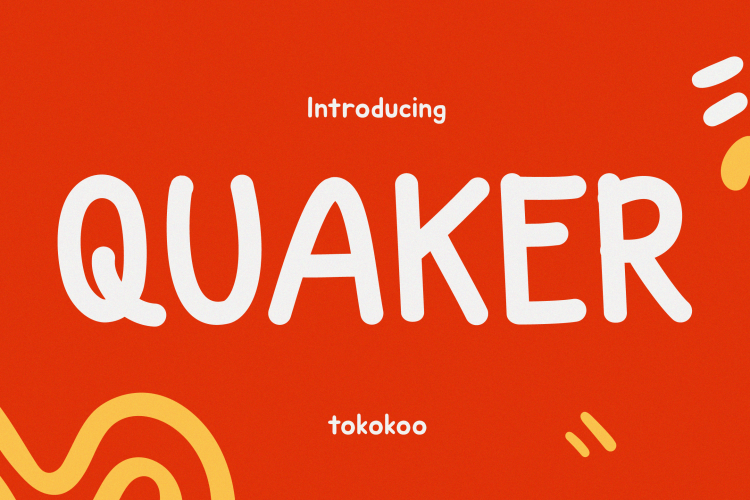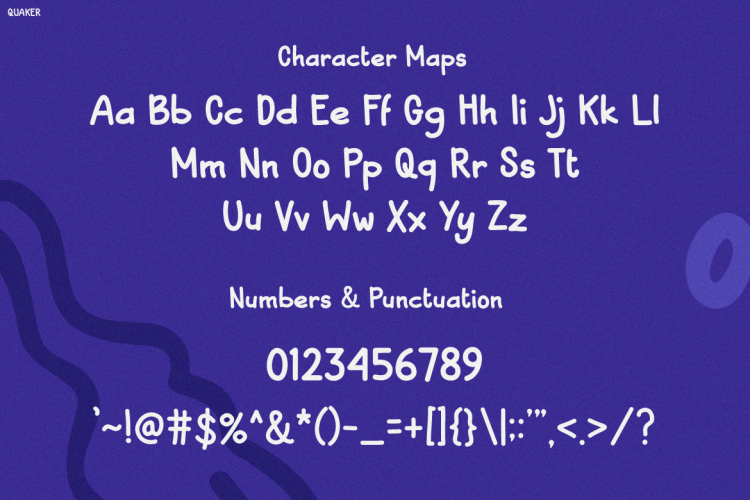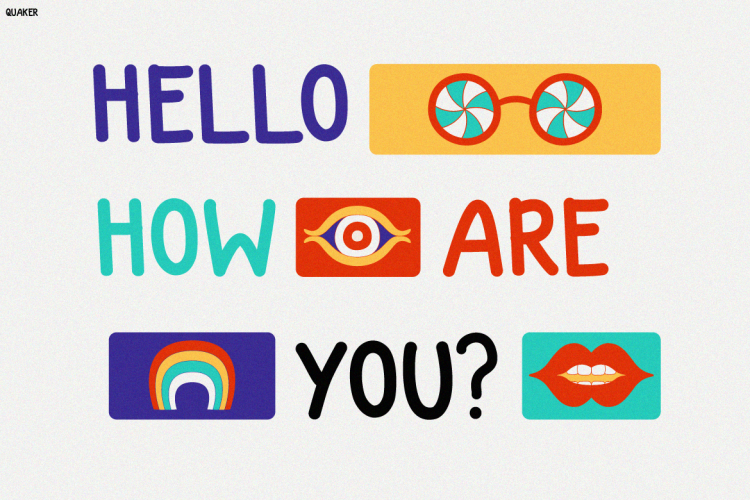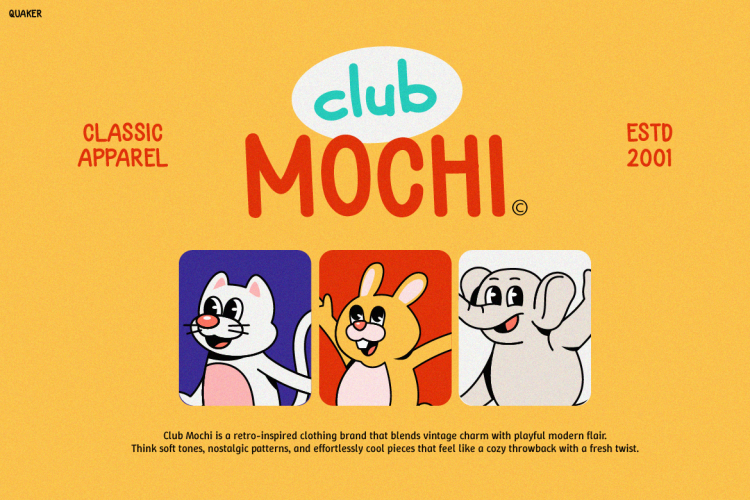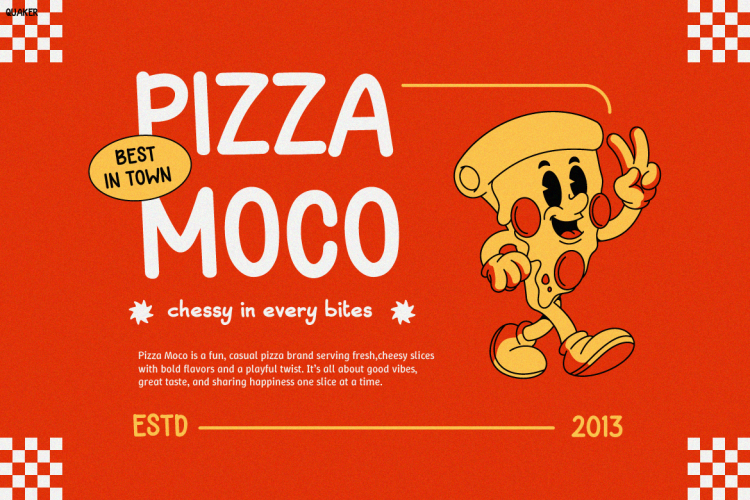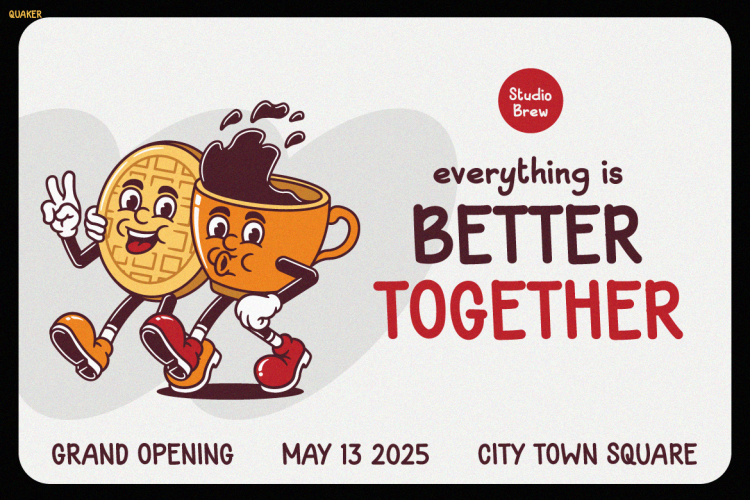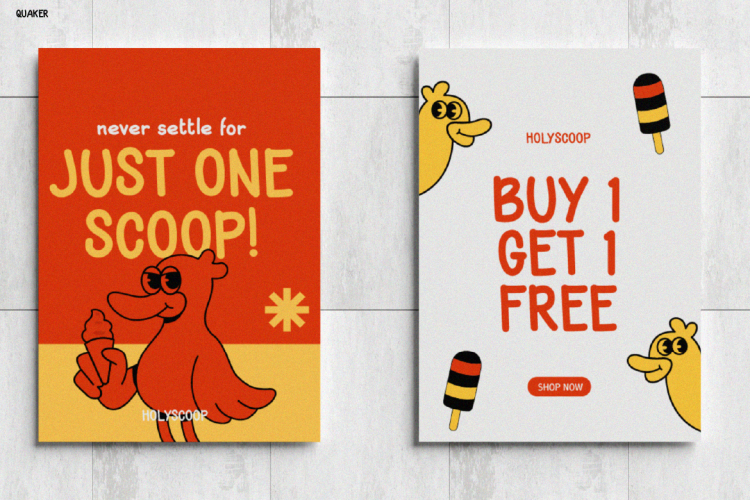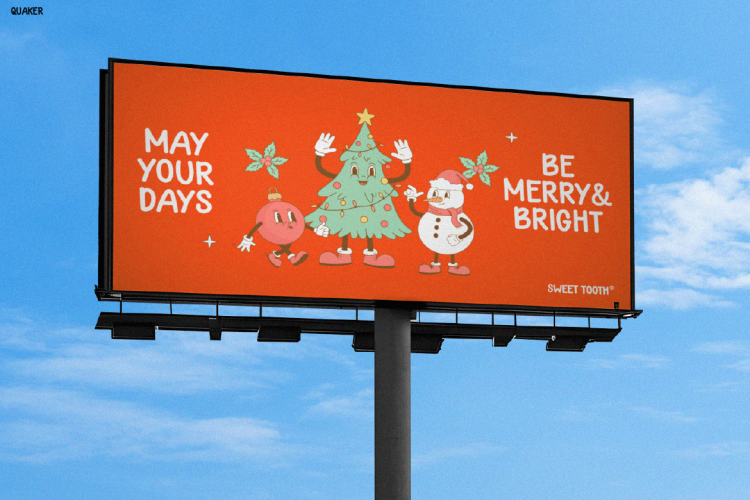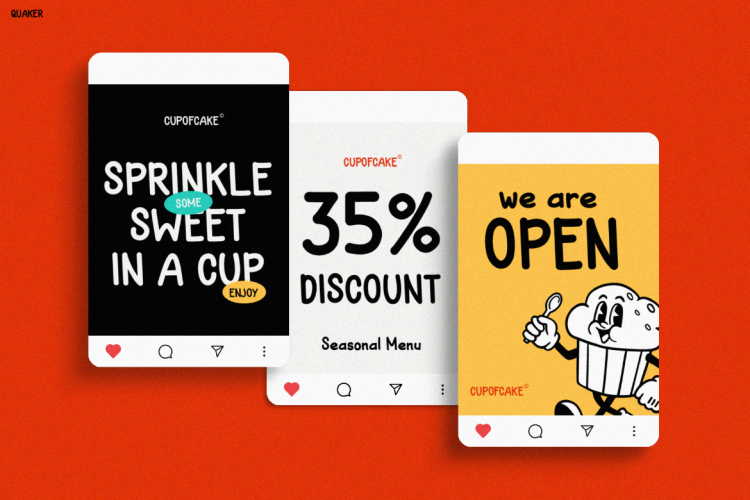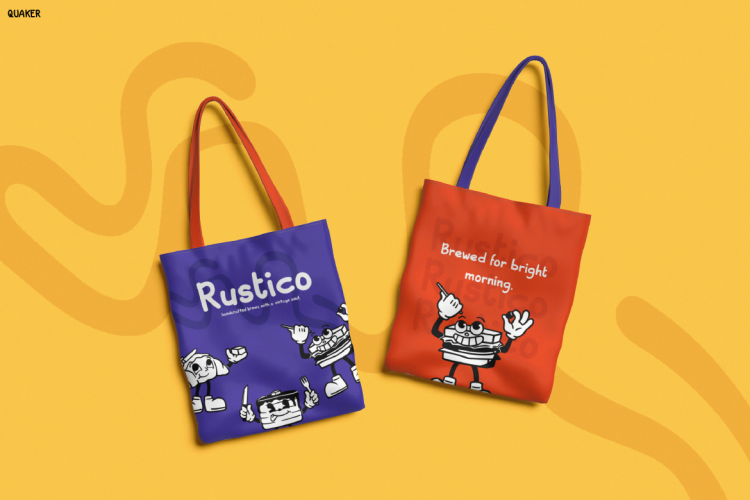
Kids Font Quaker โ Playful, Cheerful & Full of Character!
Kids Font Quaker is a delightful typeface that brings imagination and joy to life! From the very first glance, it radiates positivity and charm. Designed with soft curves and quirky letterforms, this font perfectly captures the colorful energy of childhood. Moreover, its balanced structure between playfulness and readability makes it both fun and functional.
Every letter feels alive with characterโmaking your text dance with a friendly rhythm. In addition, the handcrafted aesthetic gives your projects an authentic and spontaneous touch. Whether you use it for packaging, posters, or digital content, Kids Font Quaker easily stands out and draws smiles everywhere. Therefore, itโs not just a fontโitโs an instant mood-lifter that makes your message feel happy and human.
Furthermore, the designโs thoughtful proportions ensure excellent readability even at smaller sizes. As a result, you can confidently use it across both print and digital platforms. Its cheerful vibe, combined with smooth curves and rounded edges, adds a modern twist to any playful design.
Who Itโs Perfect For
Kids Font Quaker is perfect for creative designers, educators, illustrators, and business owners who wish to add a dose of fun to their visuals. It works beautifully for childrenโs brands, toy packaging, and colorful classroom materials. Also, it shines in kidsโ apparel, party invitations, food packaging, and social media content that needs a joyful vibe.
If youโre designing for a daycare, a candy shop, or a family-friendly cafรฉ, this font instantly creates a warm and approachable impression. In addition, its versatile style ensures that every project looks polished yet full of life. Therefore, itโs a must-have for anyone who values creativity, friendliness, and strong visual impact in their designs.
Bring the Fun to Your Designs!
Let your imagination soar with Kids Font Quaker! This font doesnโt just decorate your wordsโit amplifies their personality. Moreover, it helps your designs communicate joy and authenticity effortlessly. So, why settle for plain text when you can make your creations shine with charm and playfulness?